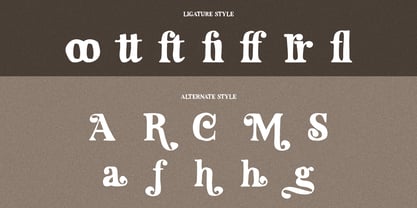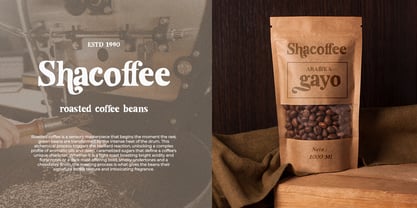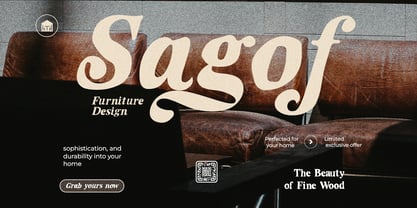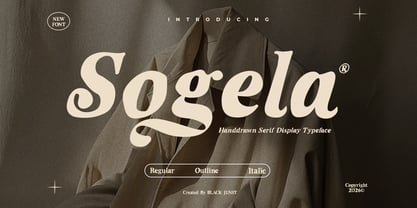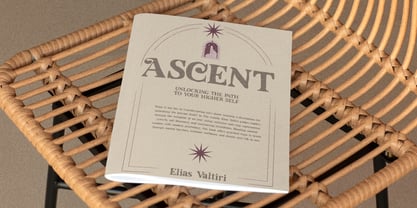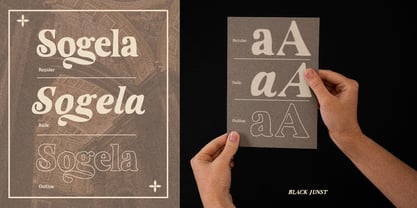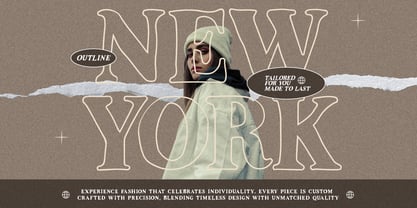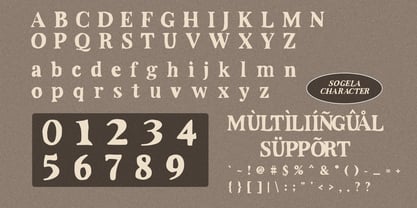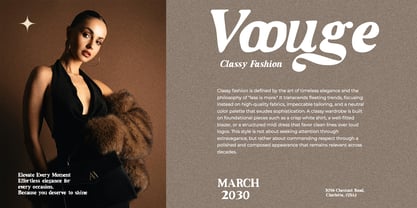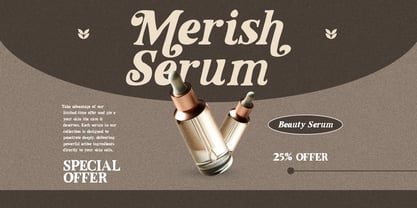
Sogela
by Black Junst
The Sogela Font Family was designed by Maulana Semar and published by Black Junst. Sogela contains 3 styles and family package options. More about this family
Sogela – Handdrawn Serif Display Typeface Sogela is a beautifully crafted handdrawn serif display font designed to bring elegance, warmth, and a unique artistic touch to your projects. With its smooth curves, soft serif details, and distinctive character shapes, Sogela delivers a premium and eye-catching look that stands out instantly. This typeface perfectly blends modern luxury with a handcrafted feel, making it highly versatile for various creative needs. ----------- Included styles: - Regular - Italic - Outline ----- Features: - Uppercase & Lowercase - Stylish Alternates & Ligatures - Multilingual Support - Handcrafted Letterforms ---- Perfect for: Logo design, branding, packaging, fashion labels, beauty products, editorial layouts, wedding invitations, social media graphics, posters, and high-end visual projects. Whether you're building a strong brand identity or creating stunning headlines, Sogela adds a sophisticated and memorable impression to every design.
Designers: Maulana Semar
Foundry: Black Junst